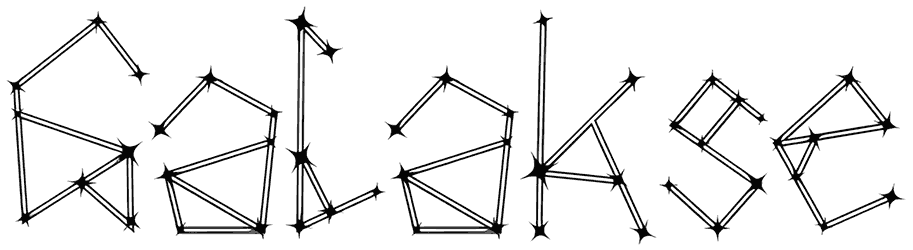
Galakse Font
Let’s display the galaxy in your design and create a different look with a striking option. As a space font, this item can brilliantly shine your words and convey a sweet vibe. Galakse provides you with almost full characters, which means you can use it for any layout, namely books, logos, t-shirts, and whatnot.